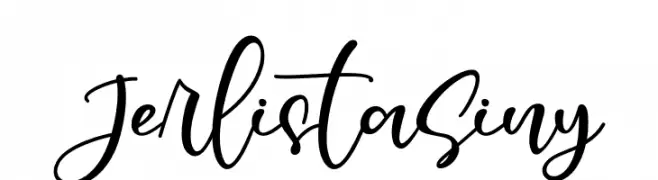
A lively handwritten script font with expressive, fluid strokes.
تحظى Jerlista Siny, CocoSharp Trial ExtraLight Italic, stunegart, Garan Fox Demo and Cube بشعبية لخطوطها النظيفة وتطبيقاتها الواسعة — من الهوية البصرية إلى الصفحات المقصودة والملصقات.